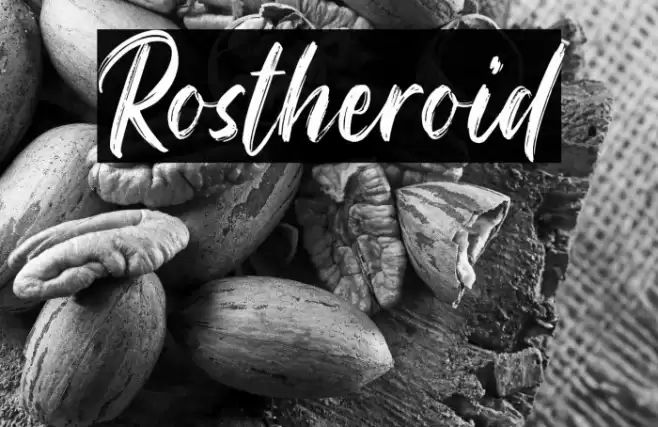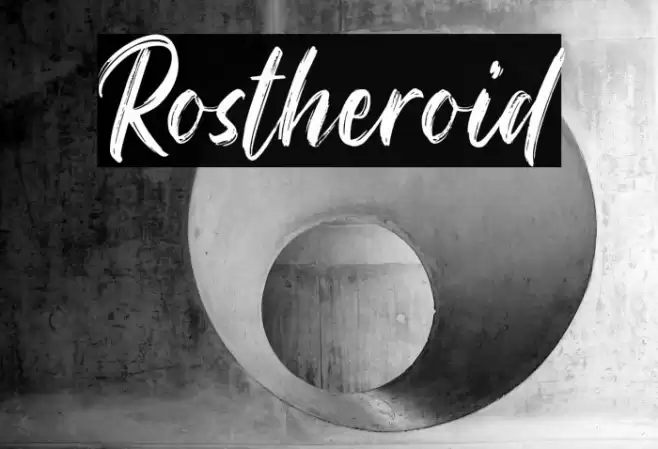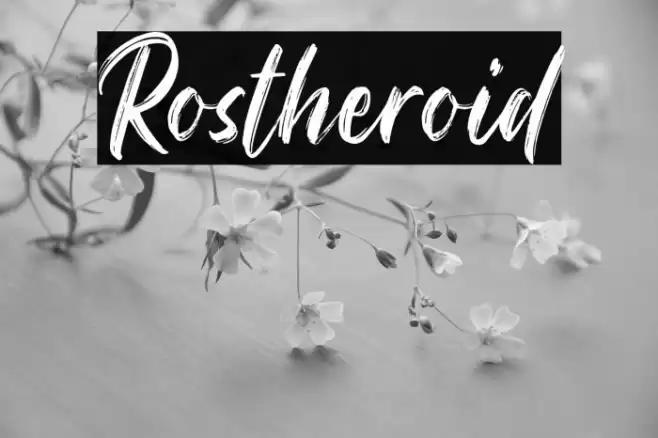
Rostheroid Font
Rostheroid Description
This font exudes a dynamic and energetic style, characterized by its brush script appearance. The strokes are bold and expressive, with a hand-painted feel that adds a personal touch to any design. The letters are slightly slanted, enhancing the sense of movement and fluidity. The uppercase and lowercase characters maintain a consistent style, with sweeping curves and varying stroke widths that create a lively rhythm. The numbers and special characters are equally expressive, ensuring a cohesive look across all text elements. This font's artistic flair makes it ideal for creative projects that require a bold and personal touch.
A dynamic brush script font with bold, expressive strokes and a hand-painted feel from Regular fonts.
- Proposed Projects: Ideal for branding, packaging, posters, and invitations where a personal and artistic touch is desired.